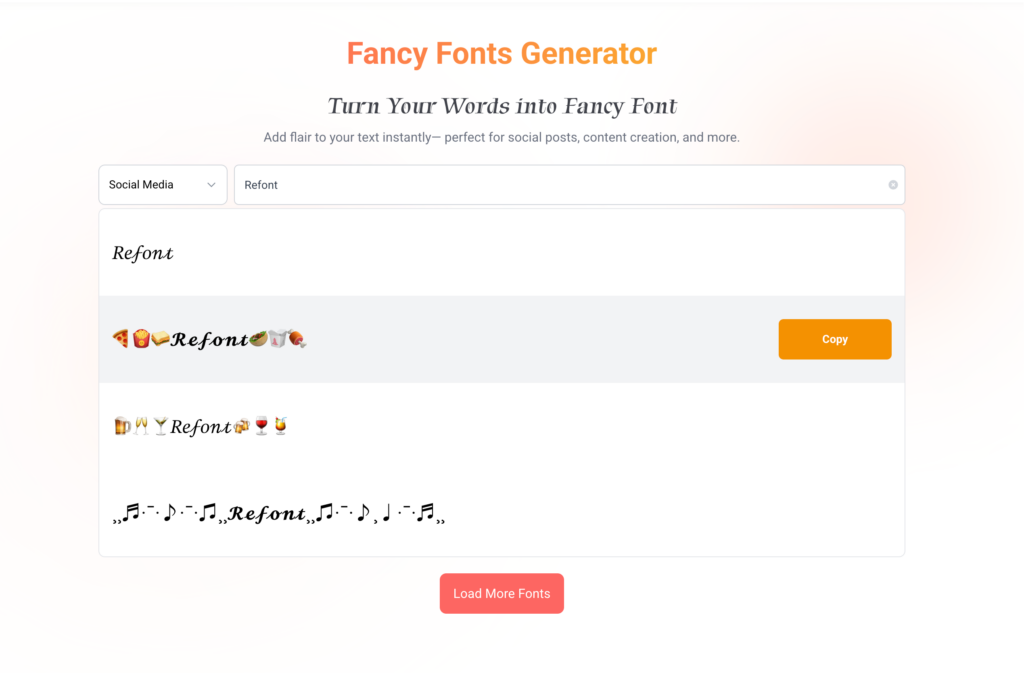
Aesthetic Fonts Generator | Copy & Paste Stylish Fonts for Instagram, TikTok & More
Looking to make your social media posts stand out with stylish fonts? Our aesthetic fonts generator lets you copy and paste beautiful, unique fonts for free — perfect for Instagram bios, TikTok captions, YouTube thumbnails, and more.
What Are Aesthetic Fonts?
Today’s content creators, influencers, and digital marketers understand that first impressions are visual — and font style plays a big role. Here’s why aesthetic fonts are trending across platforms like Instagram, TikTok, Twitter (X), and Snapchat: Boost engagement with eye-catching bios and captions, Build a consistent brand aesthetic, Stand out in crowded feeds, Personalize usernames, comments, and messages, Enhance the perceived professionalism of your content.
Why Use an Aesthetic Fonts Generator?
Today’s content creators, influencers, and digital marketers understand that first impressions are visual — and font style plays a big role. Here’s why aesthetic fonts are trending across platforms like Instagram, TikTok, Twitter (X), and Snapchat: Boost engagement with eye-catching bios and captions, Build a consistent brand aesthetic, Stand out in crowded feeds, Personalize usernames, comments, and messages, Enhance the perceived professionalism of your content.
How to Use the Aesthetic Fonts Generator (Step-by-Step)
1.Enter your text – Type or paste the words you want to style.
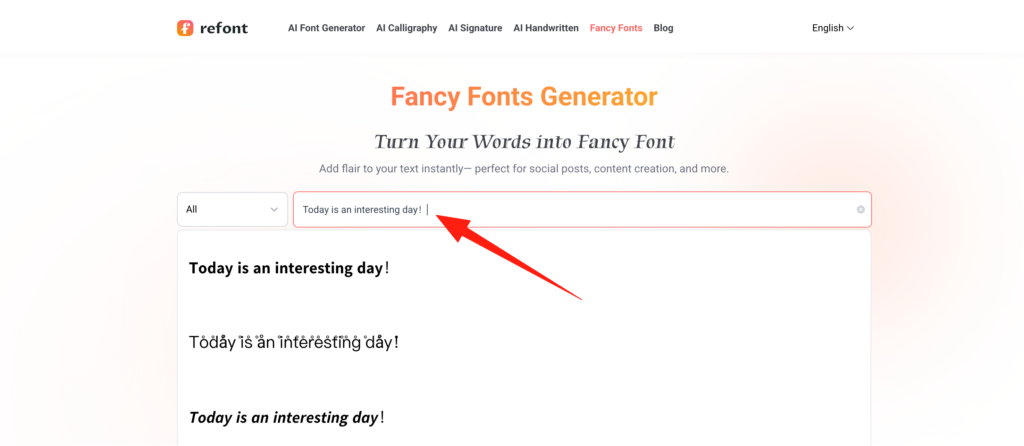
2.Browse styles – Instantly preview dozens of unique fonts: cursive, gothic, vaporwave, serif, bubble, and more.
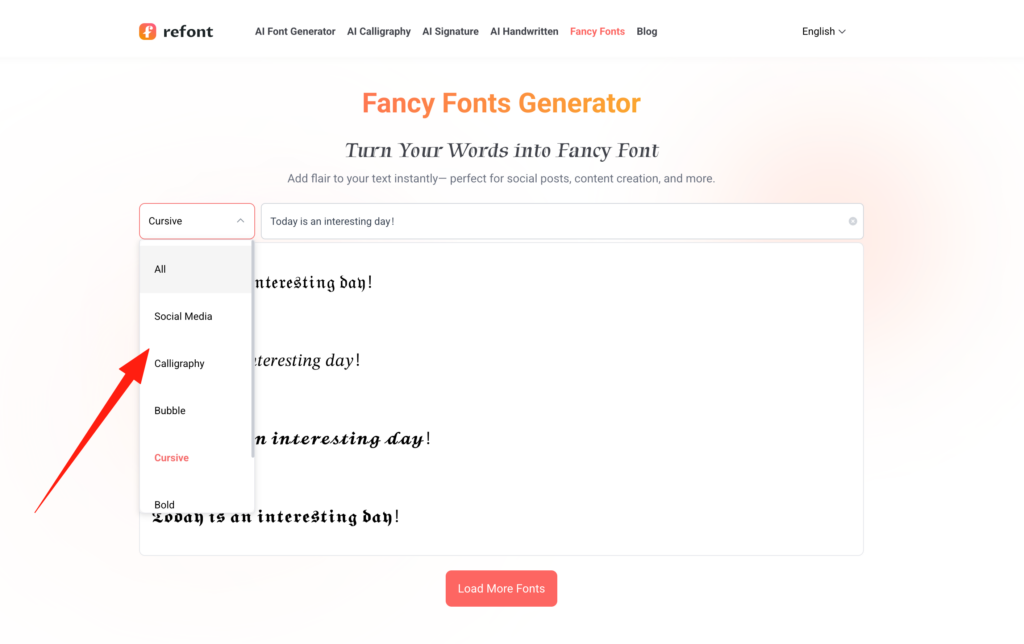
3.Click to copy – Simply tap the font you like, and it’s copied to your clipboard.
Paste anywhere – Instagram bio, TikTok caption, Twitter name, YouTube title — you name it.
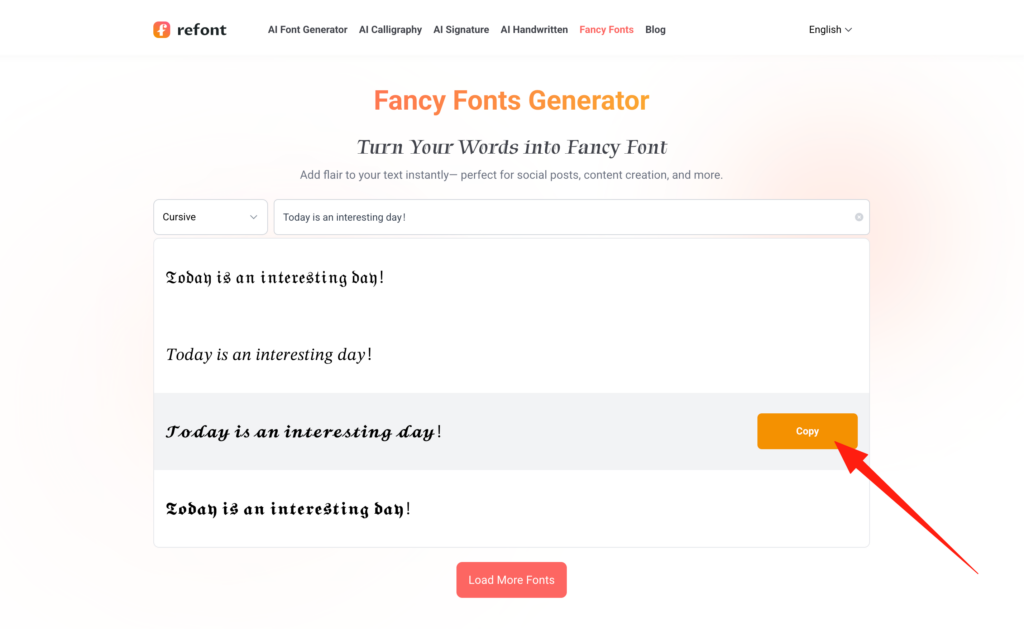
4.Paste anywhere – Instagram bio, TikTok caption, Twitter name, YouTube title — you name it.
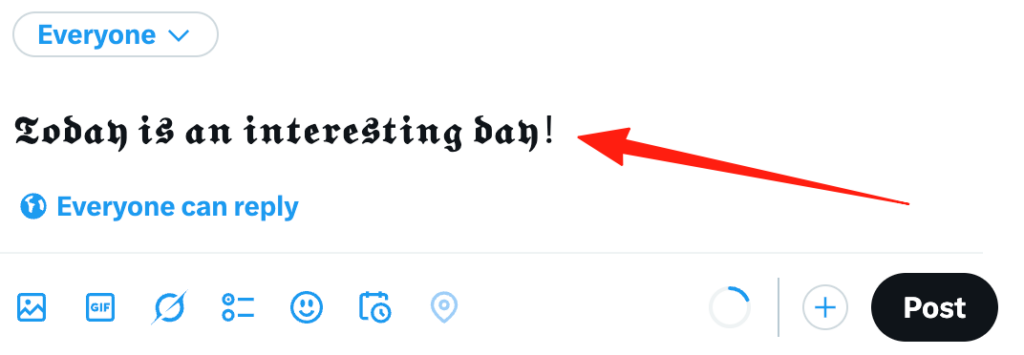
Popular Aesthetic Font Styles (Examples)
Here are a few of the most used font styles you can generate with our tool:
| Style | Example |
| 𝓒𝓾𝓻𝓼𝓲𝓿𝓮 | 𝓣𝓱𝓲𝓼 𝓲𝓼 𝓬𝓾𝓻𝓼𝓲𝓿𝓮 |
| 𝔊𝔬𝔱𝔥𝔦𝔠 | 𝕿𝖍𝖎𝖘 𝖎𝖘 𝖌𝖔𝖙𝖍𝖎𝖈 |
| Italic | 𝑡ℎ𝑖𝑠 𝑖𝑠 𝐼𝑡𝑎𝑙𝑖𝑐 |
| ⓒⓘⓡⓒⓛⓔⓢ | ⓢⓞⓒⓘⓐⓛ ⓥⓘⓑⓔⓢ |
| 🄱🄾🅇🄴🄳 | 🄷🄴🄻🄻🄾 🅆🄾🅁🄻🄳 |
| C̊ůt̊e̊ T̊e̊x̊t̊ | t̊h̊i̊s̊ i̊s̊ C̊ůt̊e̊ T̊e̊x̊t̊ |
| 🍺🥂🍸𝐹𝓪𝓃𝒸𝓎 🍻🍷🍹 | 🍺🥂🍸𝒞𝒽𝑒𝓇𝓇𝓈🍻🍷🍹 |
All of these can be copied instantly from the generator.
Where to Use Stylish Fonts
Looking to spice up your text? Stylish fonts can elevate your content across these platforms:
Social Media – On Instagram, TikTok, Facebook, Twitter/X, Threads, and Pinterest, unique fonts help personalize bios, captions, posts, comments, pins, and profile text.
Video & Content Platforms – YouTube creators often use stylized text for thumbnails and video titles to stand out.
Community Platforms – Discord and Reddit allow custom fonts in usernames, server roles, post flairs, and user flairs for better community engagement.
Perfect for making your profiles stand out!
Are Aesthetic Fonts Safe?
Just keep in mind: Some fancy fonts may not display correctly on older devices. Overusing stylized fonts in long text blocks can hurt readability.
SEO Tips: Using Aesthetic Fonts Without Compromising Accessibility
Stylish fonts can definitely turn heads — but go overboard, and you might end up trading impact for inconvenience. The trick is using them with a bit of restraint and a good sense of design.
Rather than dressing entire paragraphs in decorative fonts, keep them for headers, callouts, or accent text where they can shine without making things hard to read. When it comes to accessibility, it’s smart to pair these fancy characters with plain-text versions that screen readers can understand. That way, everyone — including users relying on assistive tech — gets the full message.
And a quick heads-up: don’t use stylized fonts for anything critical, like navigation menus, terms of service, or legal notes. Looks are great, but clarity always wins. With a thoughtful balance, you can keep your content both beautiful and user-friendly.